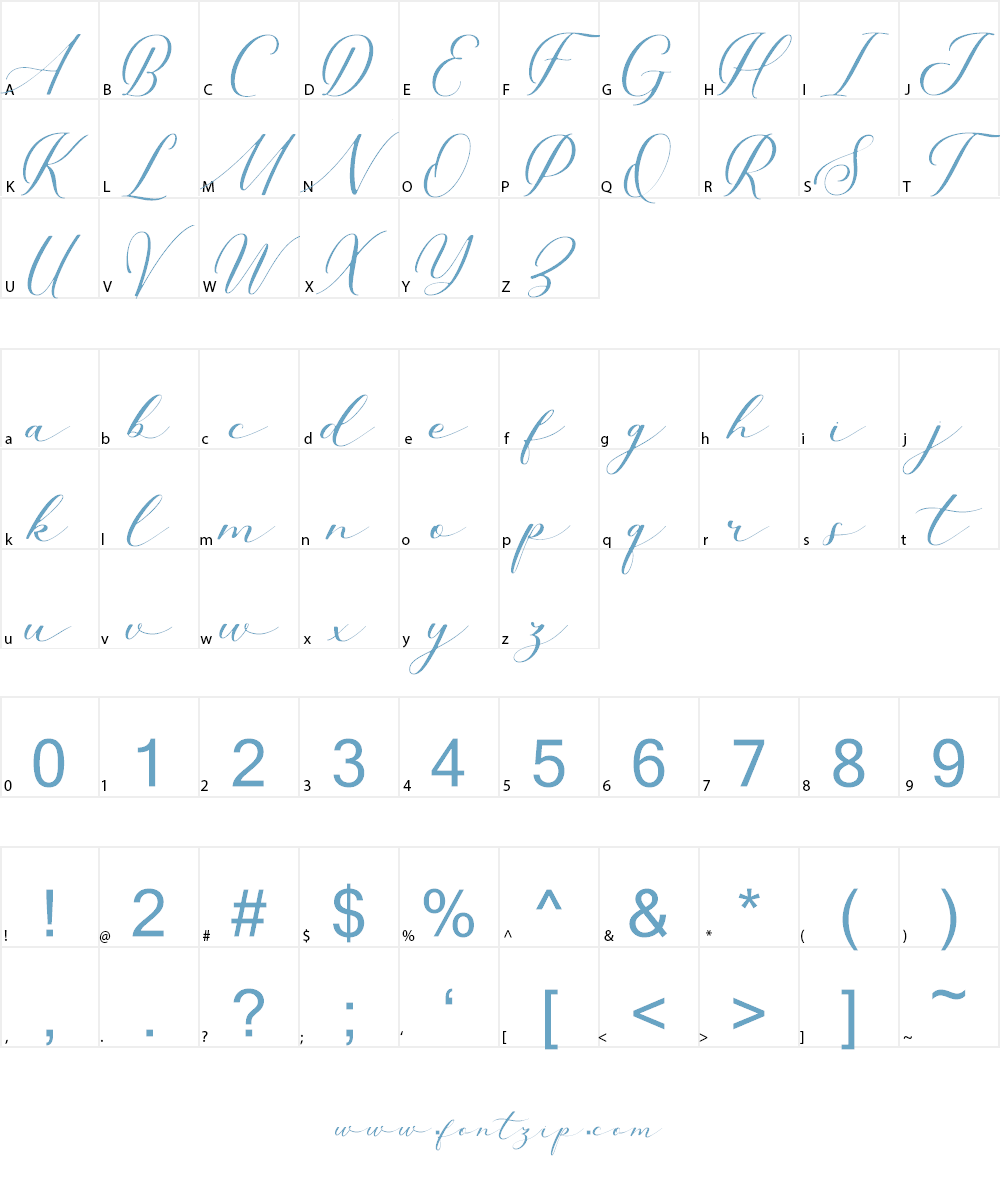
First of all, sorry for that shocking pink at the front, thank you so much for still stopping by. Without any further due, please welcome, Millerstone. A sophisticated beautiful modern calligraphy script font. Inspired by the edginess of the experimental fashion visual branding. It will be a good pair for your casual yet still luxury branding, logo, fashion visual concept, magazine, advertising, social media, ootd, oh well sky is the limit.